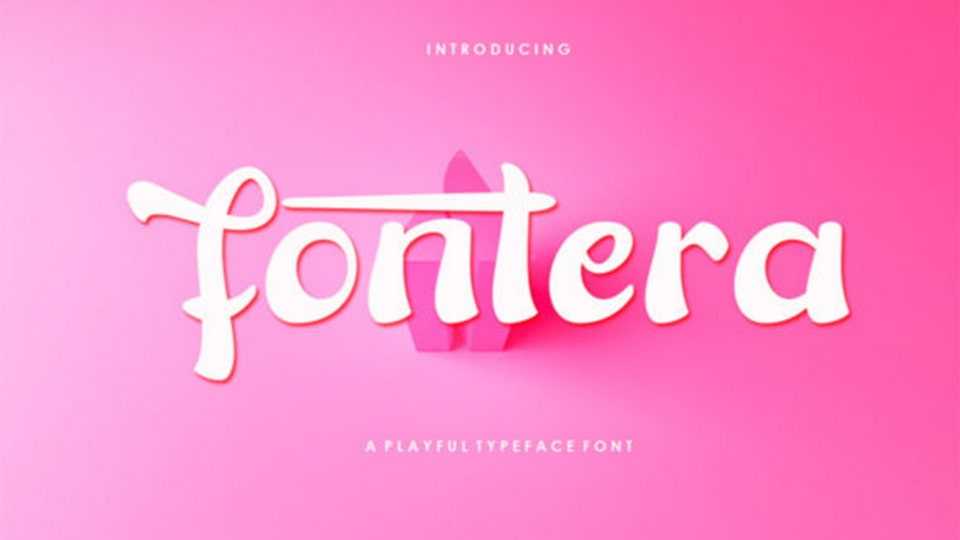
Download Fontera font, a cool, brushed and trendy display typeface. This font reads as strong, confident, and dynamic and can add tons of stylish character to your designs.